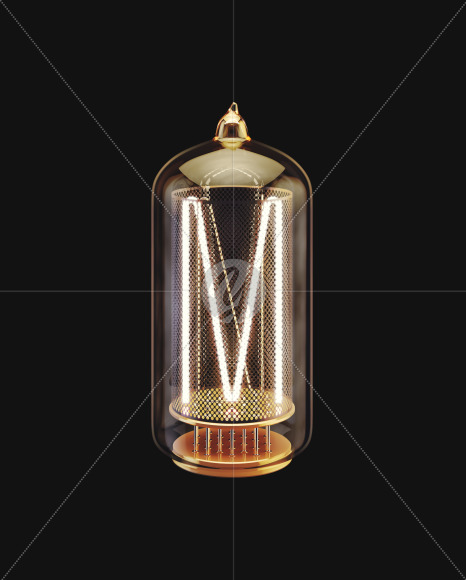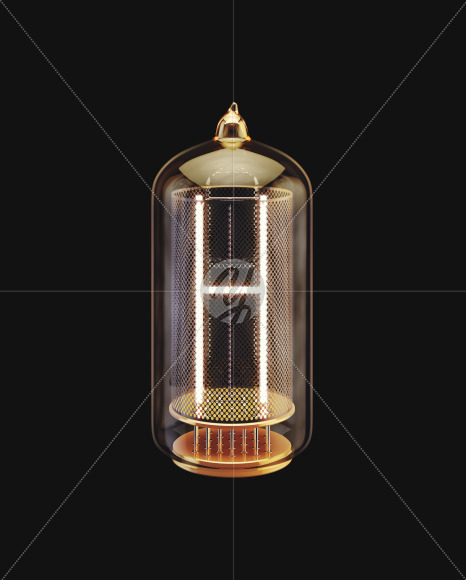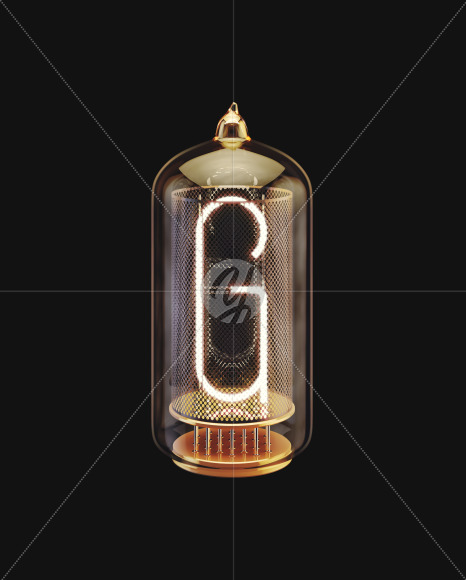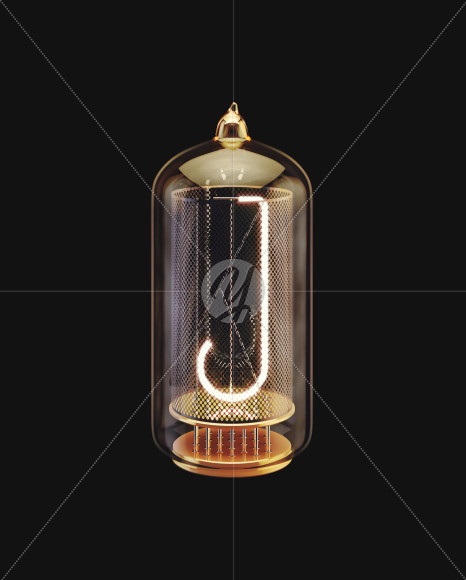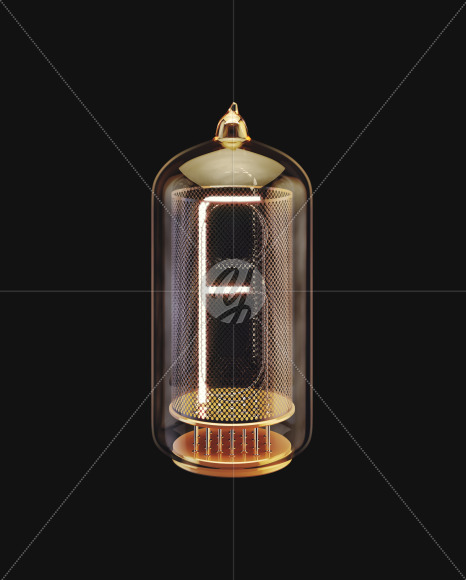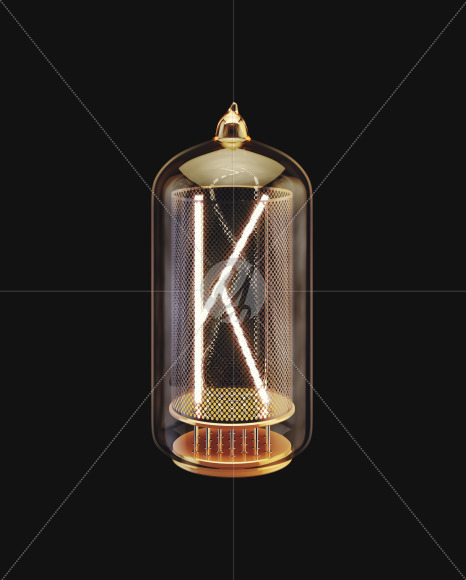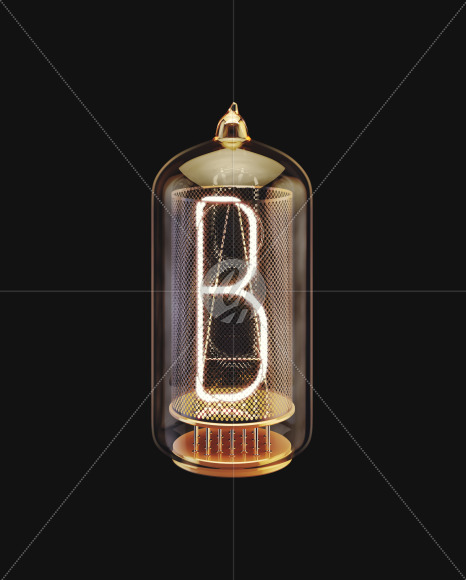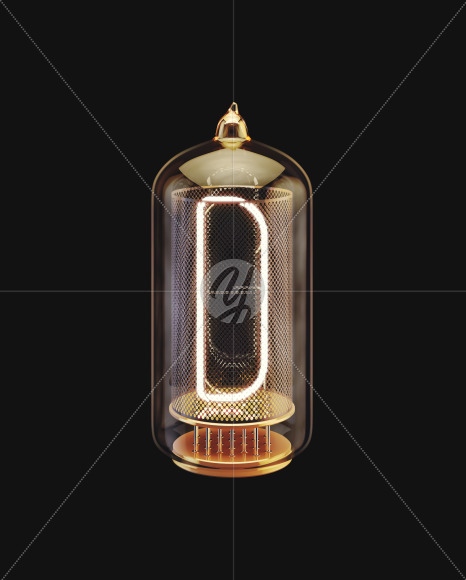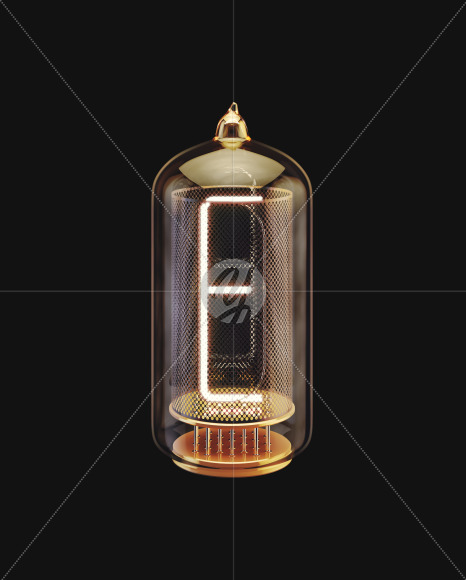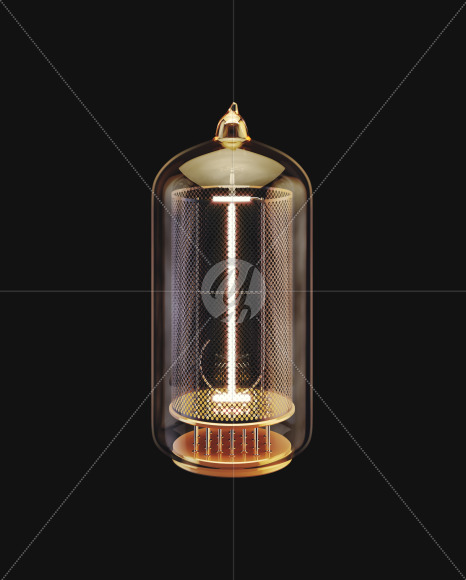
Hi, introducing a lettering set of rendered 3d font. It’s a stylized shining letters placed inside of a vintage electric tube. Also two authentique tube amplifier renders are included. All bulbs files has transparent background and 2500×4500 px resolution.